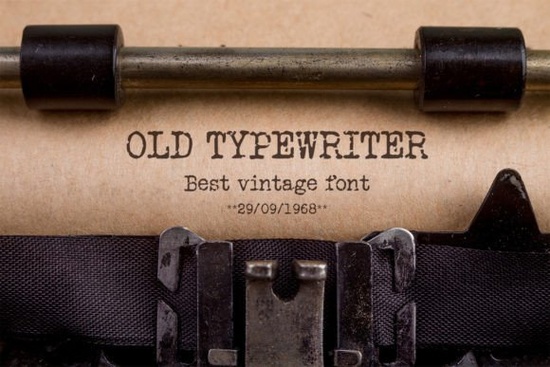
If you’ve ever wanted to add a touch of vintage charm or gritty realism to your designs, the Old Typewriter Font might be exactly what you’re looking for. This slab serif typeface mimics the look of classic mechanical typewriters complete with uneven letter spacing, subtle imperfections, and that unmistakable retro feel. Whether you’re designing a mystery-themed poster, crafting a nostalgic greeting card, or creating merch for a detective podcast, this font brings authenticity without needing heavy editing.
What makes Old Typewriter stand out is how naturally it fits into projects that call for a sense of history or rawness. Unlike overly polished modern fonts, it carries character in every glyph. And because it’s a slab serif meaning it has those bold, block-like serifs it remains highly legible even at smaller sizes, which is great for body text in zines or mock newspaper layouts.
Where does the Old Typewriter Font work best?
This font shines in contexts where mood matters as much as message. Think:
- Print-on-demand products: T-shirts with vintage quotes, coffee mugs labeled “Case Files,” or notebook covers styled like detective journals.
- Editorial design: Headlines for indie magazines, faux newspaper clippings in scrapbooks, or chapter titles in mystery novels.
- Wall art and signage: Framed quotes, café menu boards with a retro diner vibe, or home office decor that celebrates analog creativity.
- Digital storytelling: Social media graphics for historical accounts, podcast cover art, or YouTube thumbnails with a noir aesthetic.
Because it leans thematic, it’s best used sparingly often as a display font rather than for long paragraphs. Pair it with a clean sans-serif (like Helvetica or Arial) to balance its rough edges and keep your layout readable.
How does it compare to other slab serifs?
Not all slab serifs are created equal. Some, like Loved Font, lean romantic with soft curves and gentle terminals perfect for wedding invites or cozy branding. Others, such as Liberty Nation Font, carry a patriotic or institutional tone, often used in government-style documents or heritage branding.
In contrast, Old Typewriter occupies a unique niche: it’s not just a slab serif it’s a character. Its irregular baseline and slightly worn appearance mimic real typewriter output, making it ideal when you want your audience to feel like they’re reading something from a 1940s police file or a beat poet’s manuscript.
Tips for using it effectively
Here’s how to get the most out of this font without overdoing it:
- Avoid full blocks of text. Use it for headlines, pull quotes, labels, or short captions.
- Embrace imperfection. Don’t try to “clean it up” with tracking or kerning adjustments its charm lies in its slight inconsistencies.
- Pair thoughtfully. Combine it with minimalist fonts to create contrast. A neutral sans-serif lets the typewriter style take center stage.
- Consider context. It works beautifully for mystery, journalism, vintage travel, or literary themes but may feel out of place in tech, luxury, or corporate settings.
Who should use this font?
It’s especially useful for:
- Print-on-demand sellers creating themed merchandise (think detective kits, writer’s journals, or retro office supplies).
- Small business owners running vintage cafes, bookshops, or escape rooms who need authentic-looking signage.
- Crafters and hobbyists making scrapbook pages, handmade cards, or DIY home decor with a nostalgic twist.
- Graphic designers working on editorial, film, or music projects that benefit from period-accurate typography.
Before downloading, ask yourself: does my project need personality over polish? If yes, Old Typewriter could be your secret weapon.
Next step: If you're exploring slab serif options, compare Old Typewriter alongside similar styles like Loved Font or Liberty Nation Font to see which best matches your project’s tone. Then test it in a real mockup sometimes the right font clicks only when you see it in context.